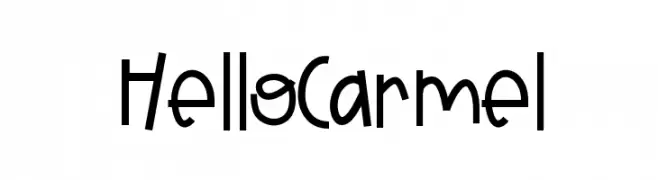
A bold, playful, hand-drawn font with a whimsical and informal style.
A bold, italicized handwritten font with a playful and dynamic style.
A playful, outlined font with a hand-drawn, whimsical style.
A playful, italic outline font with bold, dynamic characters.
A bold, playful font with chunky, rounded characters and a whimsical style.
A playful, bold, and rounded font with a cartoonish style.
A playful and whimsical font with hand-drawn, irregular letterforms.
A bold, playful font with rounded edges and a bubbly appearance.
A bold, distressed font with a vintage, rugged appearance.
A playful, bold font with rounded, bubbly characters.
A playful, bold font with rounded, thick strokes and a friendly appearance.
A bold, playful font with horizontal stripes and rounded edges.
A playful, bold font with rounded, hand-drawn characters perfect for festive designs.
A bold, playful font with a cartoonish, hand-drawn style.
A bold, dynamic font with blocky, slanted characters and thick strokes.
A bold, blocky font with rounded edges and consistent thickness.
A bold, geometric outline font with a modern and futuristic style.
A bold, geometric font with a playful, modern aesthetic and outlined characters.
A playful, handwritten-style font with bold, irregular characters.
A playful, bold font with rounded, bubbly characters and a friendly aesthetic.
A bold, playful font with rounded edges and a hand-drawn feel.
A bold, rounded font with a playful and friendly style.
A bold, rounded font with a playful and chunky style.
A playful, hand-drawn style font with consistent stroke width and a whimsical appearance.
A playful and bold font with rounded edges and whimsical serifs.
A playful, cloud-textured font with a whimsical and approachable style.
A playful, cloud-like font with bold, rounded characters and a bubbly texture.
A playful, bold font with rounded, bubbly characters perfect for fun designs.
A playful, bold font with rounded, bubbly characters ideal for fun and whimsical designs.
A playful, cloud-like font with bold, rounded characters.
A playful, cloud-like font with rounded, bold characters and a whimsical style.
Bold, rounded, hand-drawn display font with playful character.